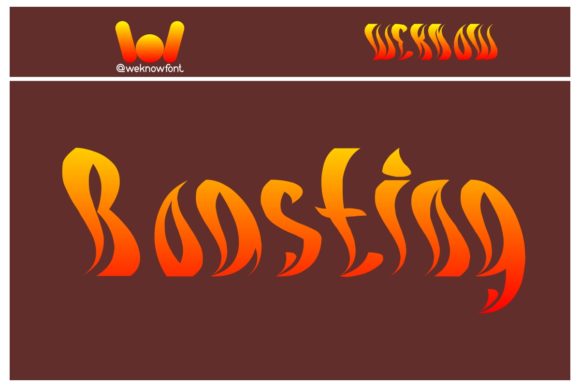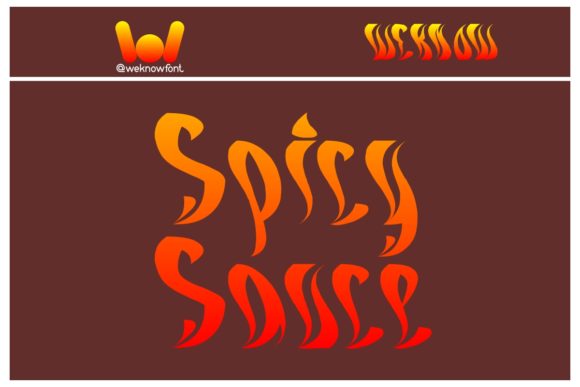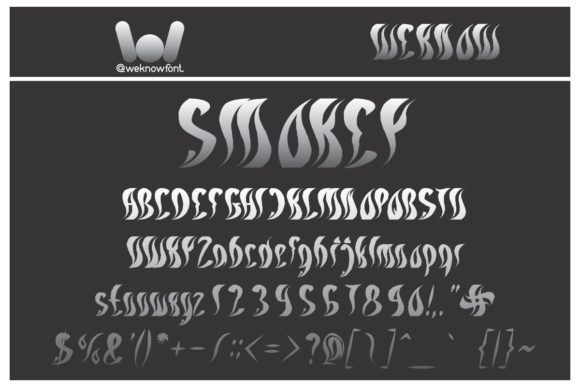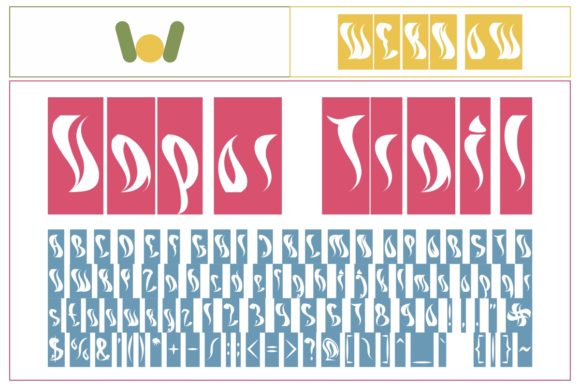
Eternal Flame Font: Elevate Your Designs with a Unique Display Font
In the vast world of typography, finding the perfect font that captures the essence of your creative vision can be a daunting task. However, if you’re looking for a font that exudes friendliness and versatility, look no further than the Eternal Flame Font. This unique display font has been making waves in the design community, and for good reason. Its distinctive charm and approachable feel make it an incredibly versatile choice, suitable for a wide range of contexts and projects.
The Allure of Eternal Flame Font
So, what sets Eternal Flame Font apart from the myriad of fonts available today? The answer lies in its design. Crafted with meticulous attention to detail, this font boasts a friendly and inviting appearance that immediately captures the viewer’s attention. Whether you’re working on a branding project, crafting a compelling advertisement, or designing an eye-catching poster, Eternal Flame Font brings a unique flair that can elevate your designs to new heights.
One of the standout features of Eternal Flame Font is its incredible versatility. This font isn’t limited to a specific genre or industry; rather, it can be seamlessly integrated into a variety of creative projects. From youthful and playful themes to more sophisticated and elegant designs, Eternal Flame Font adapts effortlessly, making it a valuable addition to any designer’s toolkit.
- Branding: Create memorable brand identities with a font that communicates approachability and warmth.
- Advertising: Stand out in crowded marketplaces with eye-catching ads that utilize the distinctive charm of Eternal Flame Font.
- Posters and Flyers: Add a touch of personality to your promotional materials and make them instantly noticeable.
- Digital Media: Enhance your social media posts, website headers, and email newsletters with a font that captures attention and fosters engagement.
Why Designers and Crafters Love Eternal Flame Font
Eternal Flame Font has quickly become a favorite among designers and crafters for several reasons:
- Unique Aesthetic: Its distinctive design ensures that your projects stand out from the crowd, providing a fresh alternative to more commonly used fonts.
- Emotional Connection: The friendly feel of Eternal Flame Font helps create an instant emotional connection with your audience, making your message more relatable and impactful.
- Easy to Read: Despite its unique design, Eternal Flame Font maintains excellent readability, ensuring that your message is communicated clearly and effectively.
- Highly Customizable: Experiment with different sizes, colors, and styles to tailor Eternal Flame Font to your project’s specific needs.
Tips for Getting the Most Out of Eternal Flame Font:
- Experiment with Sizes: Play around with different font sizes to create visual hierarchy and emphasize key messages.
- Pair it Wisely: Combine Eternal Flame Font with complementary fonts to add depth and interest to your designs.
- Color Matters: Choose colors that resonate with your brand or project’s theme to enhance the overall impact.
Eternal Flame Font is more than just a display font; it’s a creative tool that can transform your designs and help you connect with your audience on a deeper level. Its unique blend of friendliness, versatility, and distinctiveness makes it an invaluable asset for designers and crafters looking to make their mark. So why wait? Embrace the power of Eternal Flame Font and watch your creative ideas ignite with passion and personality.